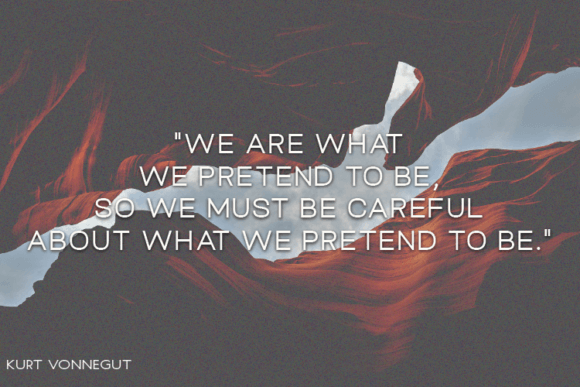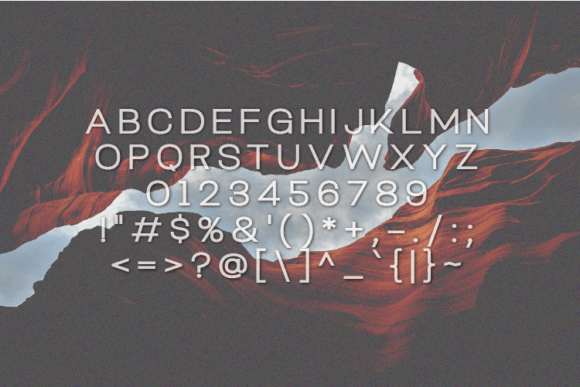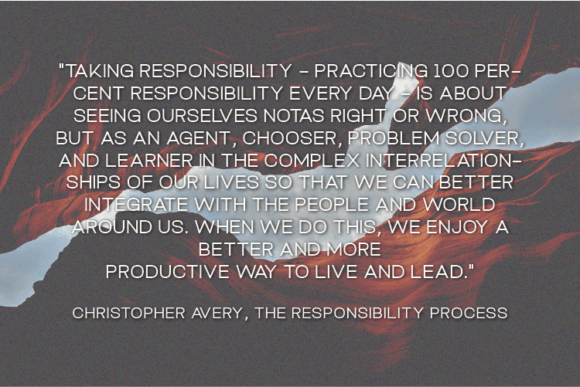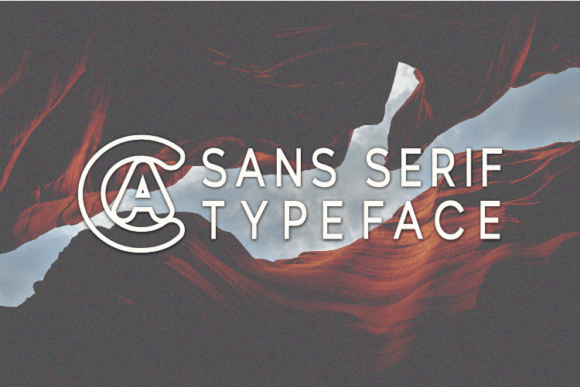
Introduction to Movebketz Font
Movebketz is a modern, classy sans serif typeface.
Extremely versatile, this typeface is perfect for logos, weddings, invitations, quotes, advertisements, print, magazines, and more .